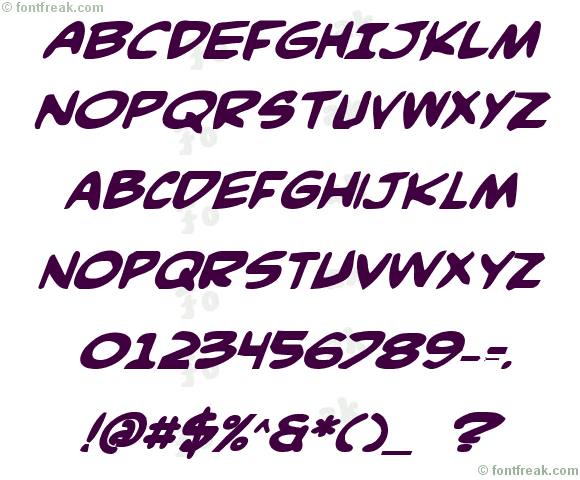
Comic Book Commando Bold Italic
About Comic Book Commando Bold Italic
Comic Book Commando Bold Italic is a striking display font designed by Daniel Zadorozny, categorized as a decorative typeface. This font embodies the playful and dynamic essence of comic book art, making it an excellent choice for various creative projects. The bold italic style features a strong stroke weight that adds emphasis and urgency, while its slightly distorted forms contribute to its unique character. The spacing is moderate, allowing for easy readability while maintaining a fun, energetic vibe.
This font is ideal for a range of applications. It shines in comic book covers and graphic novels, where its vibrant personality can enhance storytelling. Additionally, it works well for movie posters, especially in genres like action or adventure, where a bold statement is required. Restaurant menus, particularly those with a casual or themed atmosphere, can benefit from the font’s lively aesthetic. Content creators and social media marketers can also use this typeface to capture attention in promotional graphics or engaging posts.
The target audience for Comic Book Commando Bold Italic includes graphic designers, small business owners, and content creators who seek to add a touch of flair to their projects. Whether it's for branding, marketing materials, or personal use, this font provides a fun and engaging option that stands out in any design.